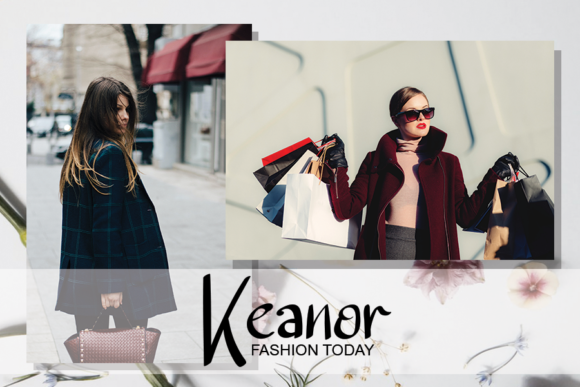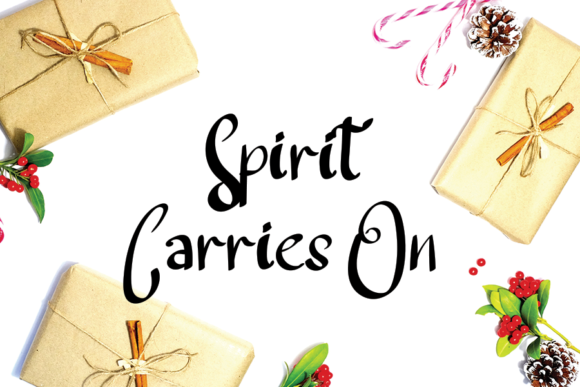
Sweet Mango Font
About Sweet Mango Font
Sweet Mango is a chic, refined script font that emanates sophistication and elegance. Its stylish alternates and ligatures make this font the perfect match for any project.